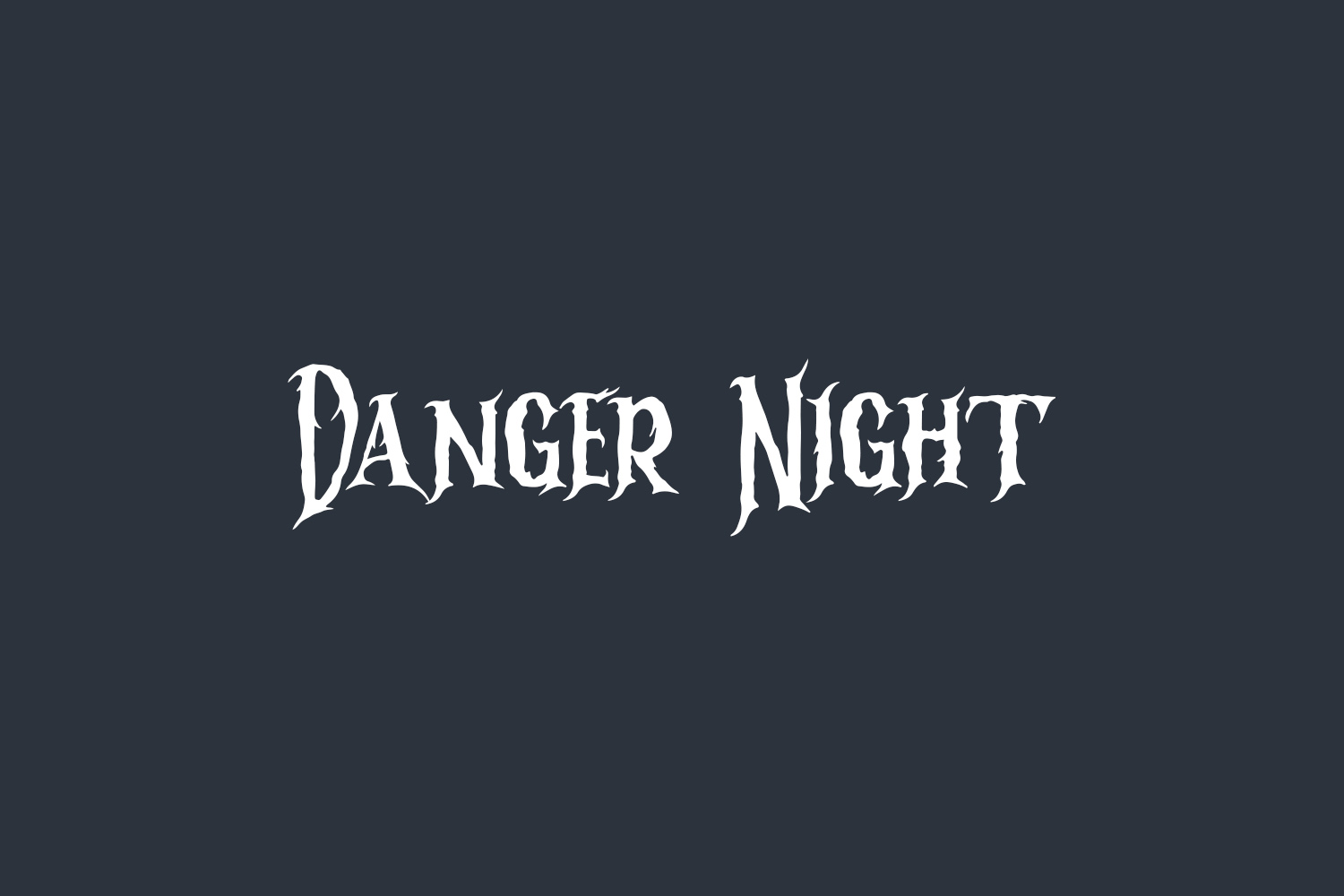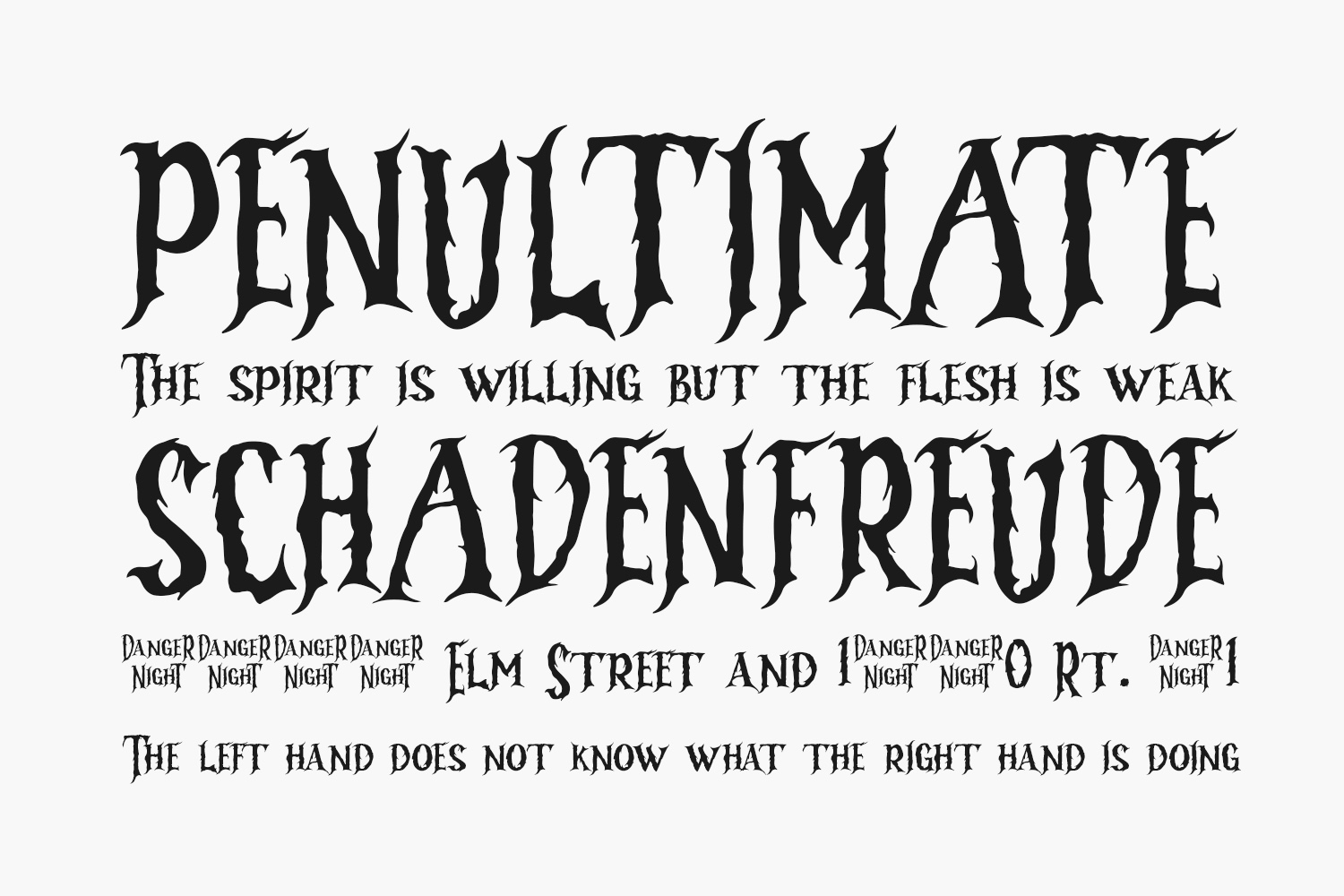
Danger Night Free Font is a cool blackletter font that is here to improve the appearance or branding of your design. This font is perfect for posters, merchandise, album covers, logos, and more. Danger Night Free was designed by Absonstype Studio is a demo and free for personal use only. Please purchase the full version for commercial use.